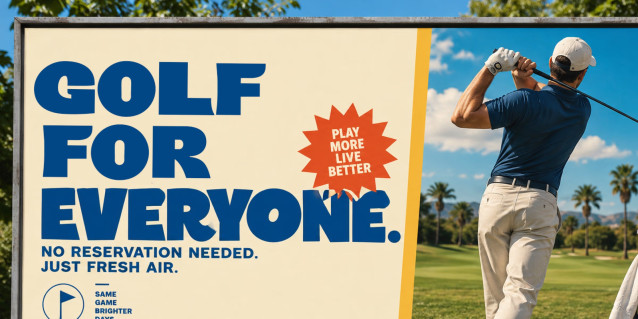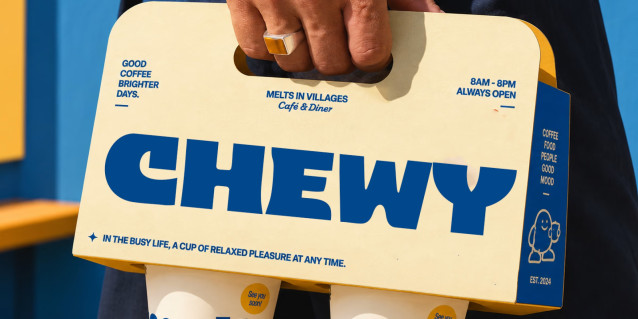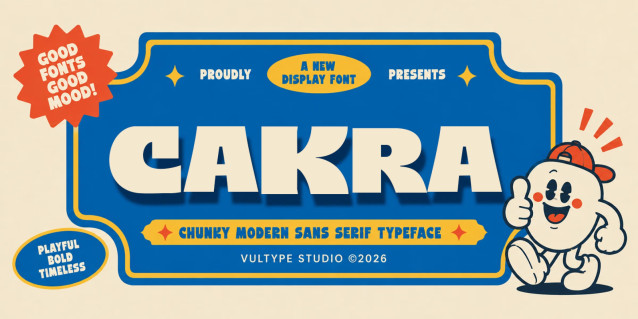
Cakra Font
AKRA is a chunky modern display sans serif designed to bring a playful, bold, and energetic personality to contemporary branding and display typography.
Built around heavy rounded forms, compact proportions, and strong visual weight, CAKRA combines the impact of a bold display typeface with a friendly, approachable character. Its softened corners and solid construction give it a distinctive cartoon-inspired feel while keeping the overall design clean and versatile.
The typeface works especially well when typography needs to stand out, feel confident, and communicate a fun modern attitude.